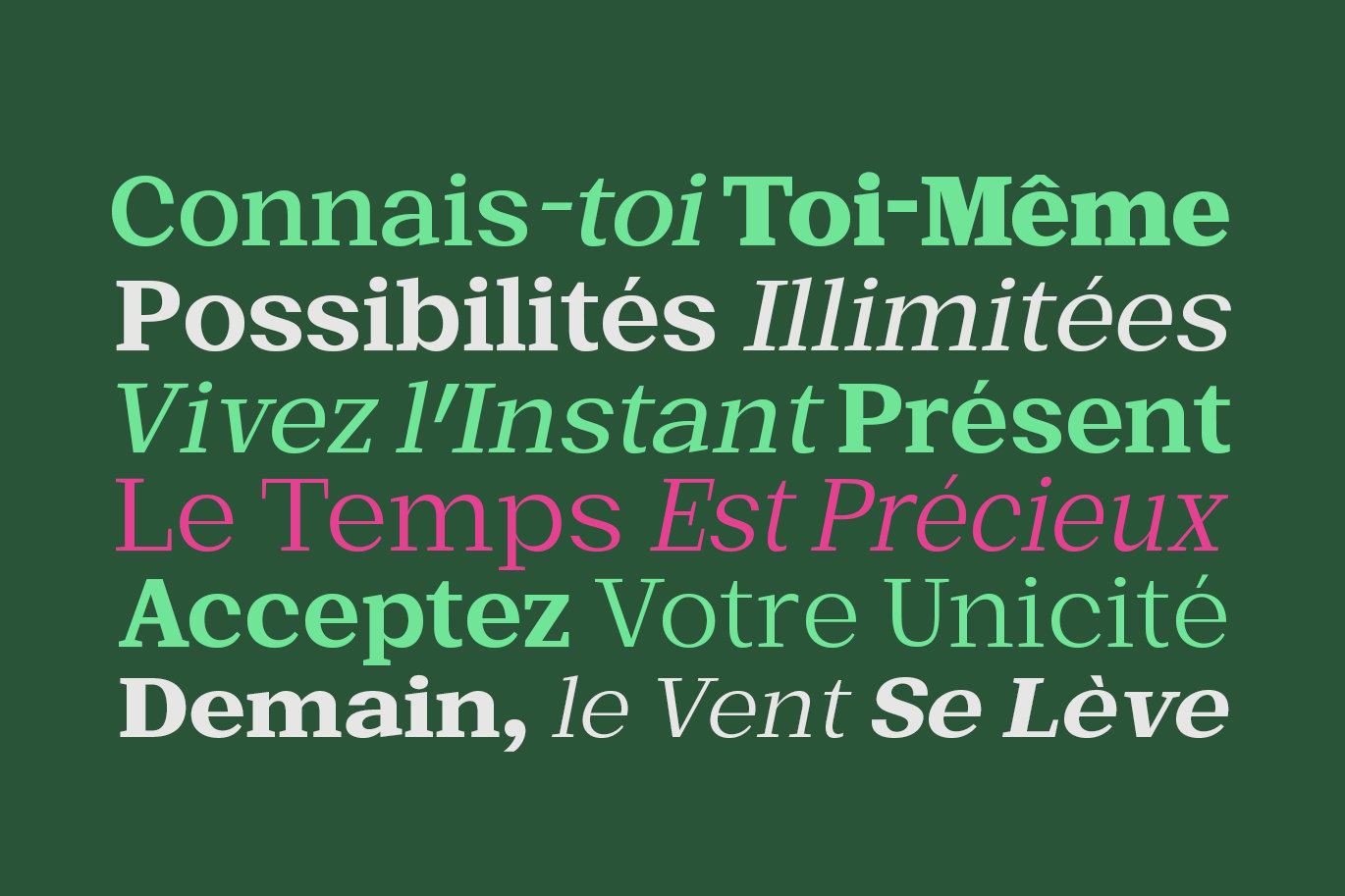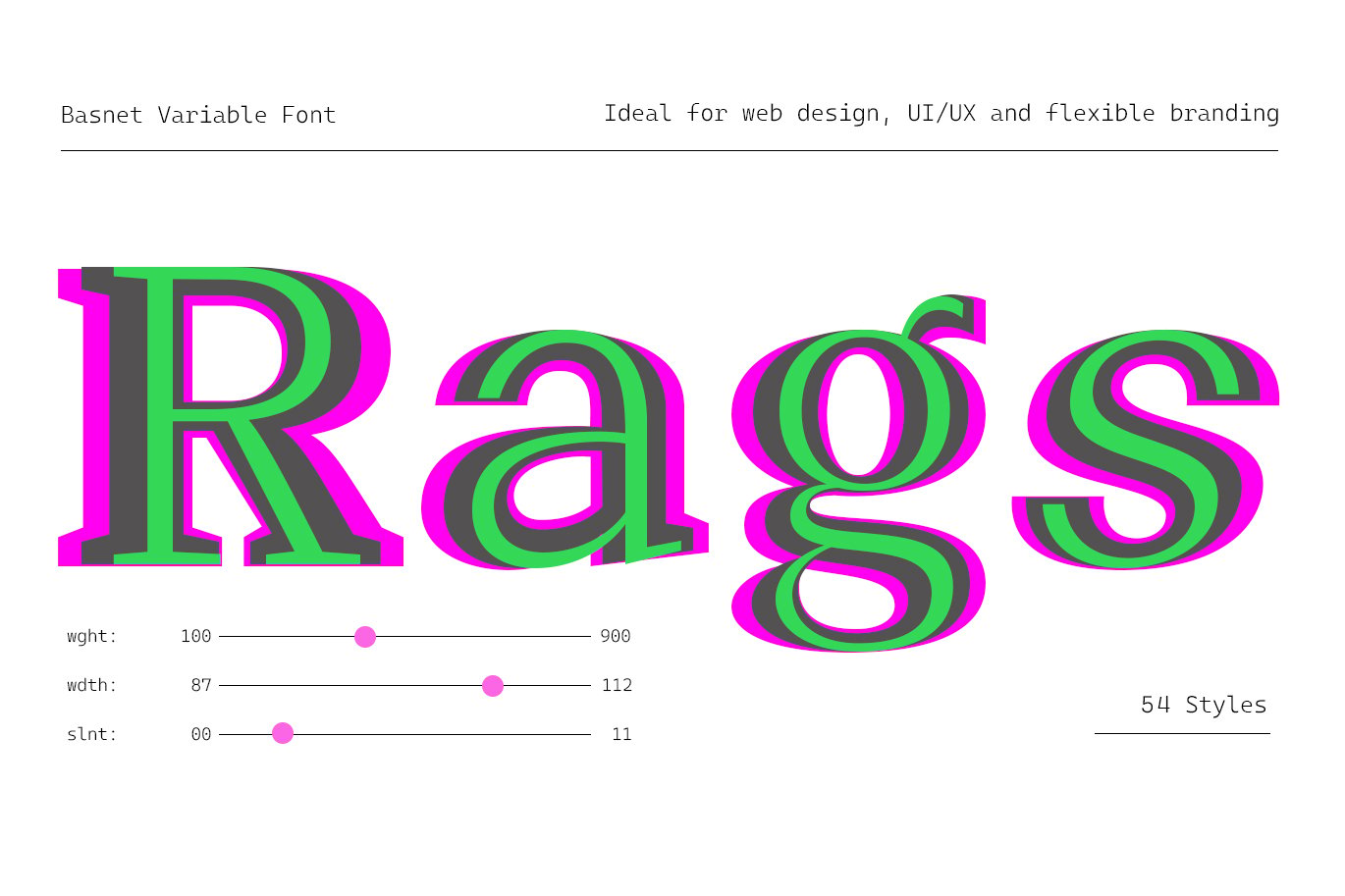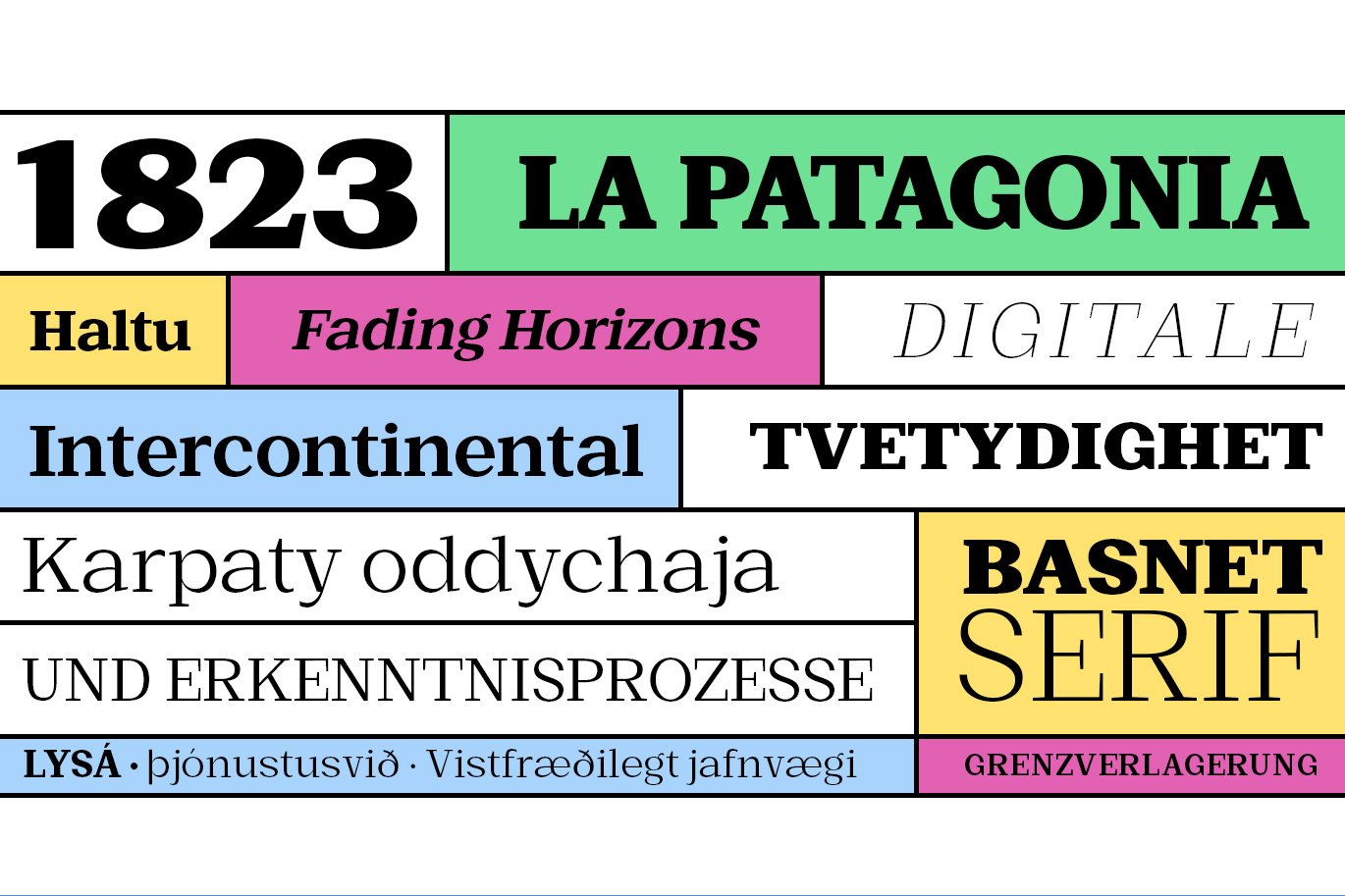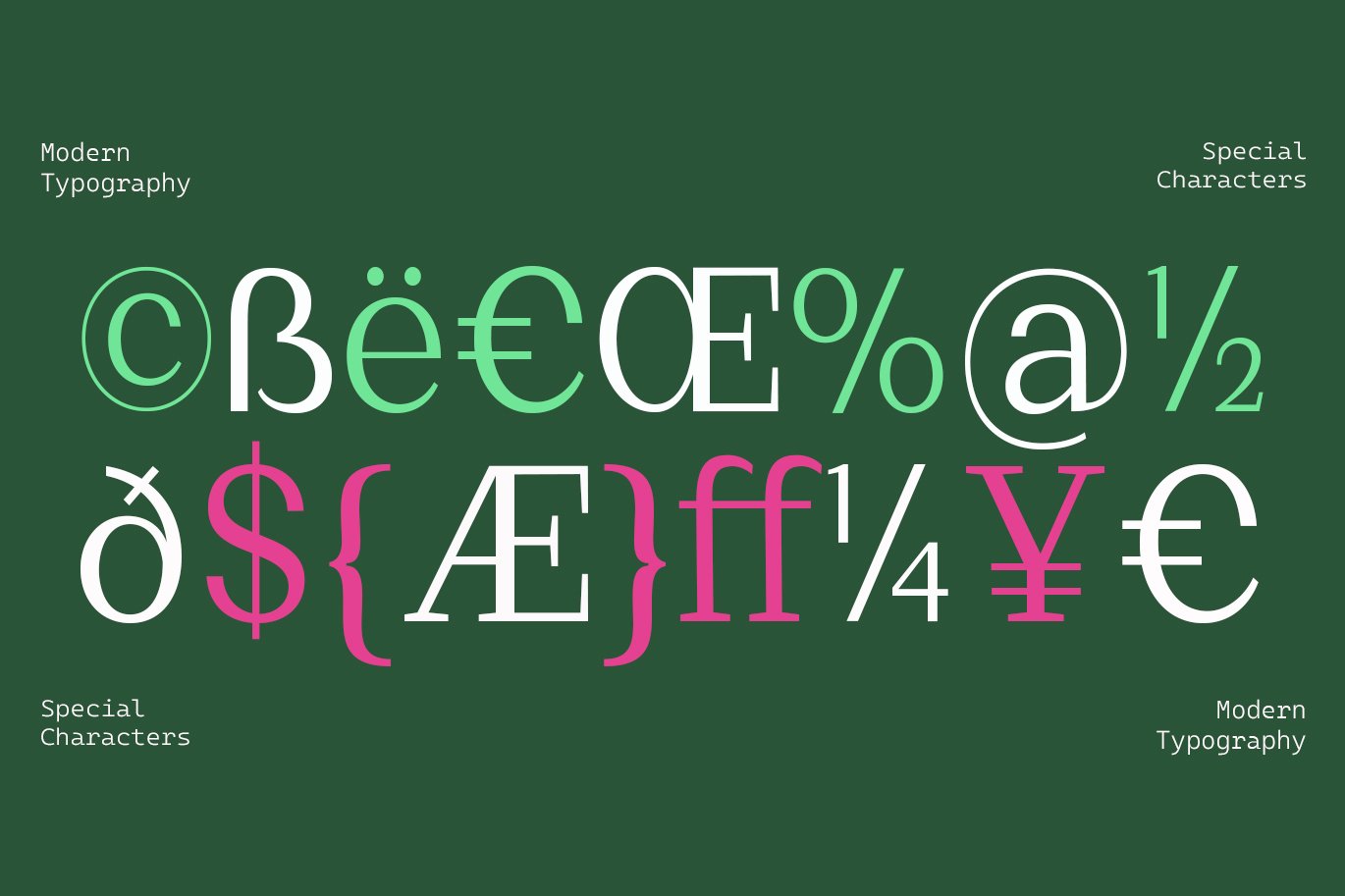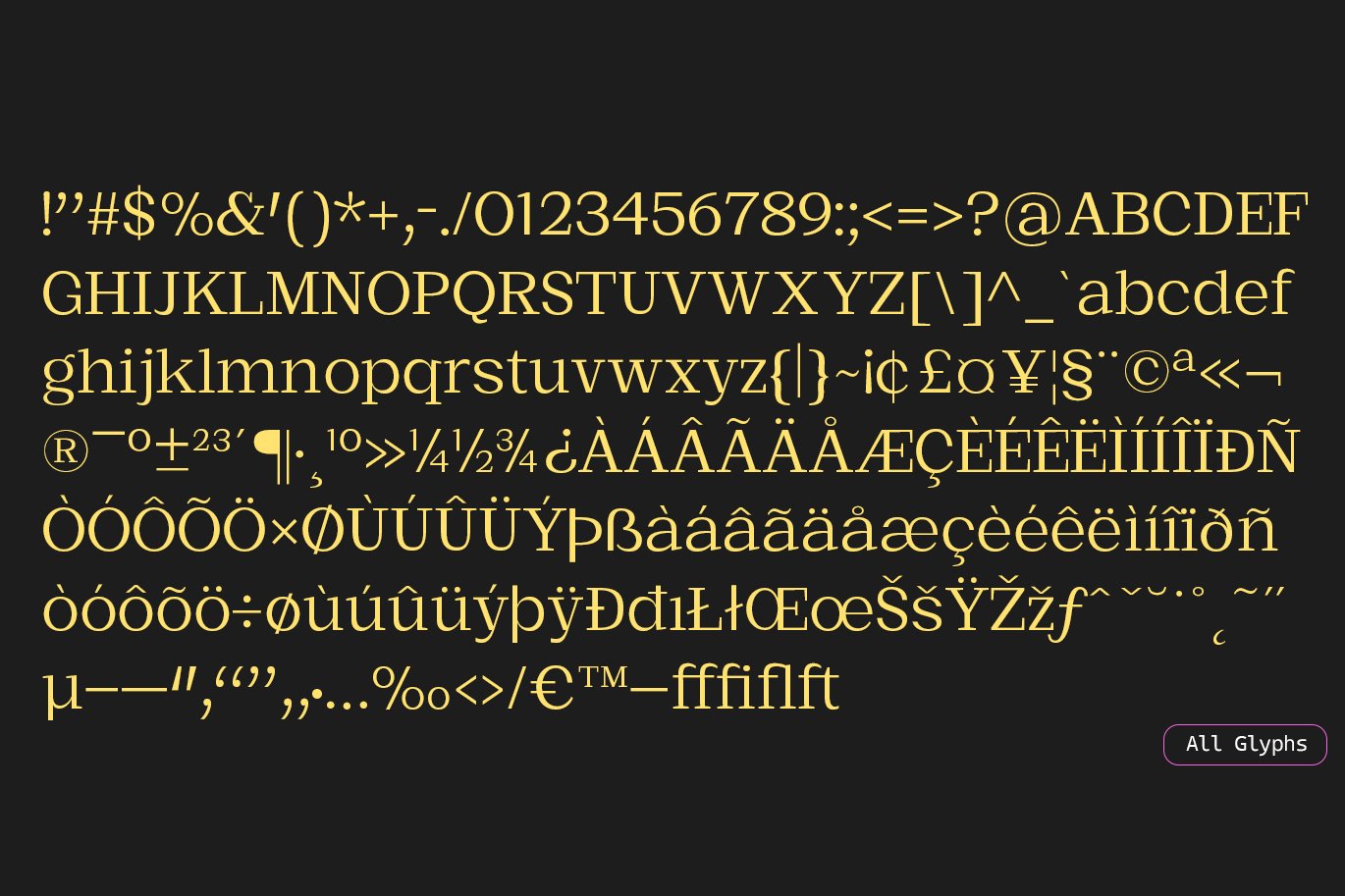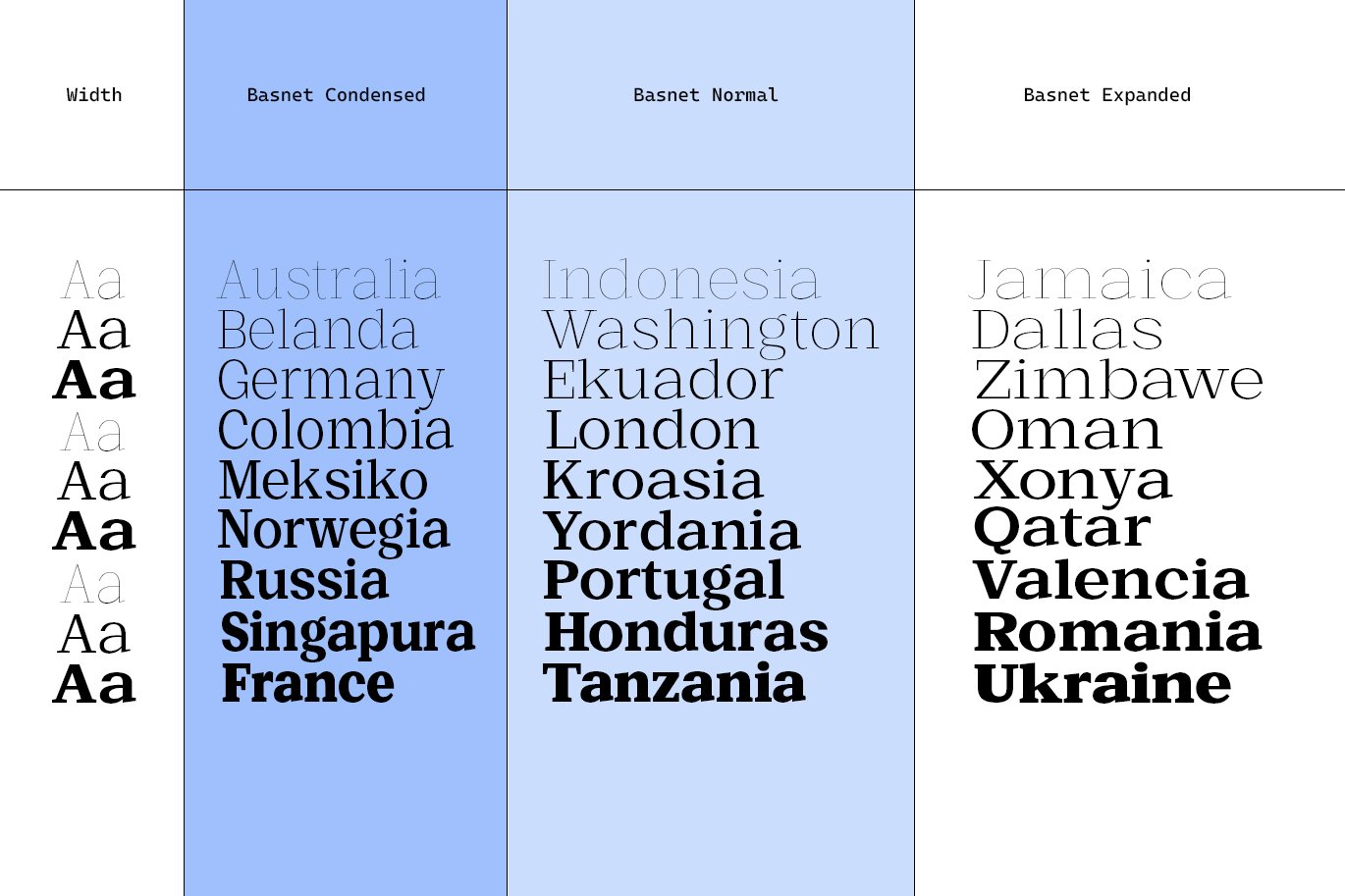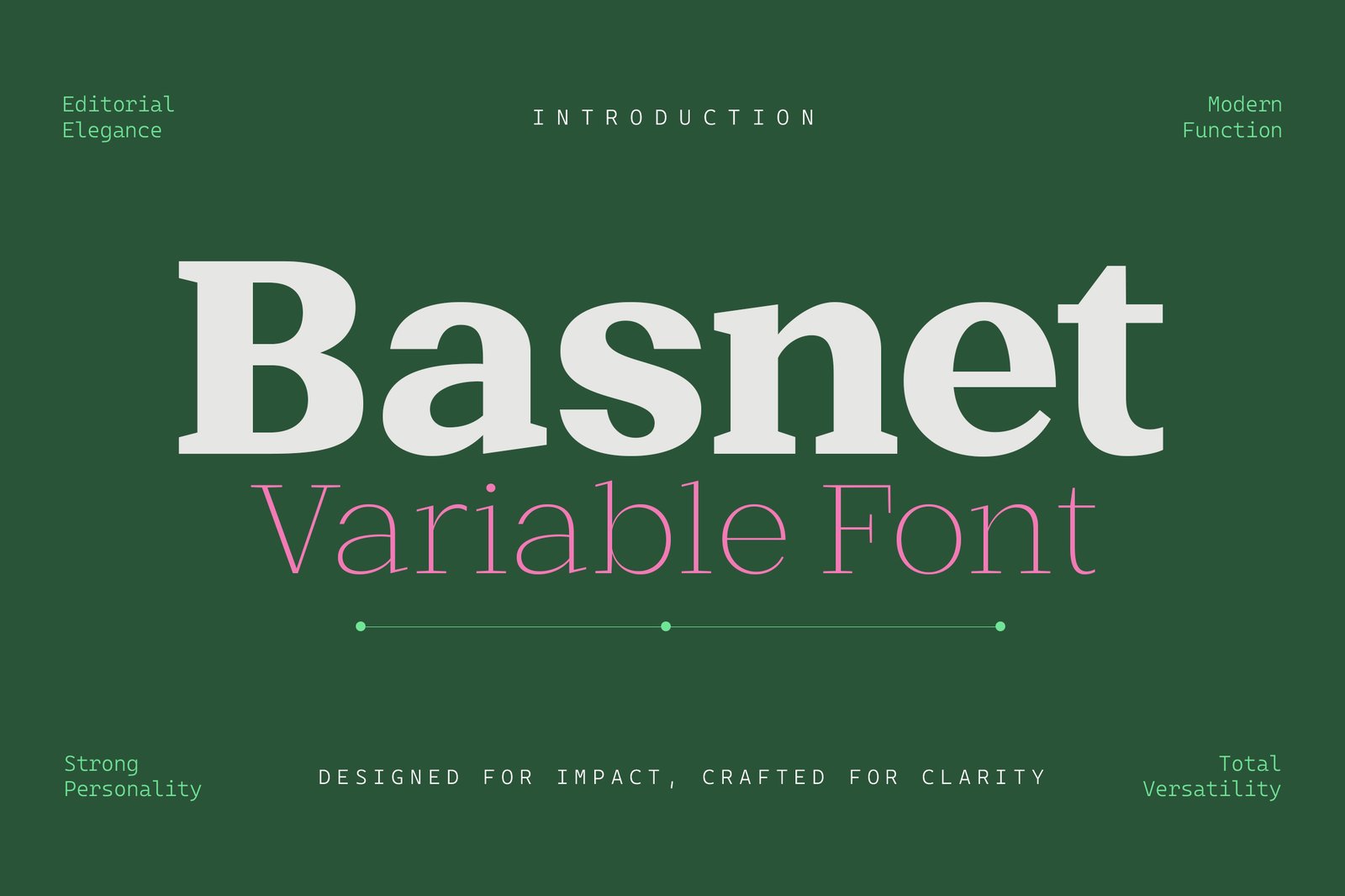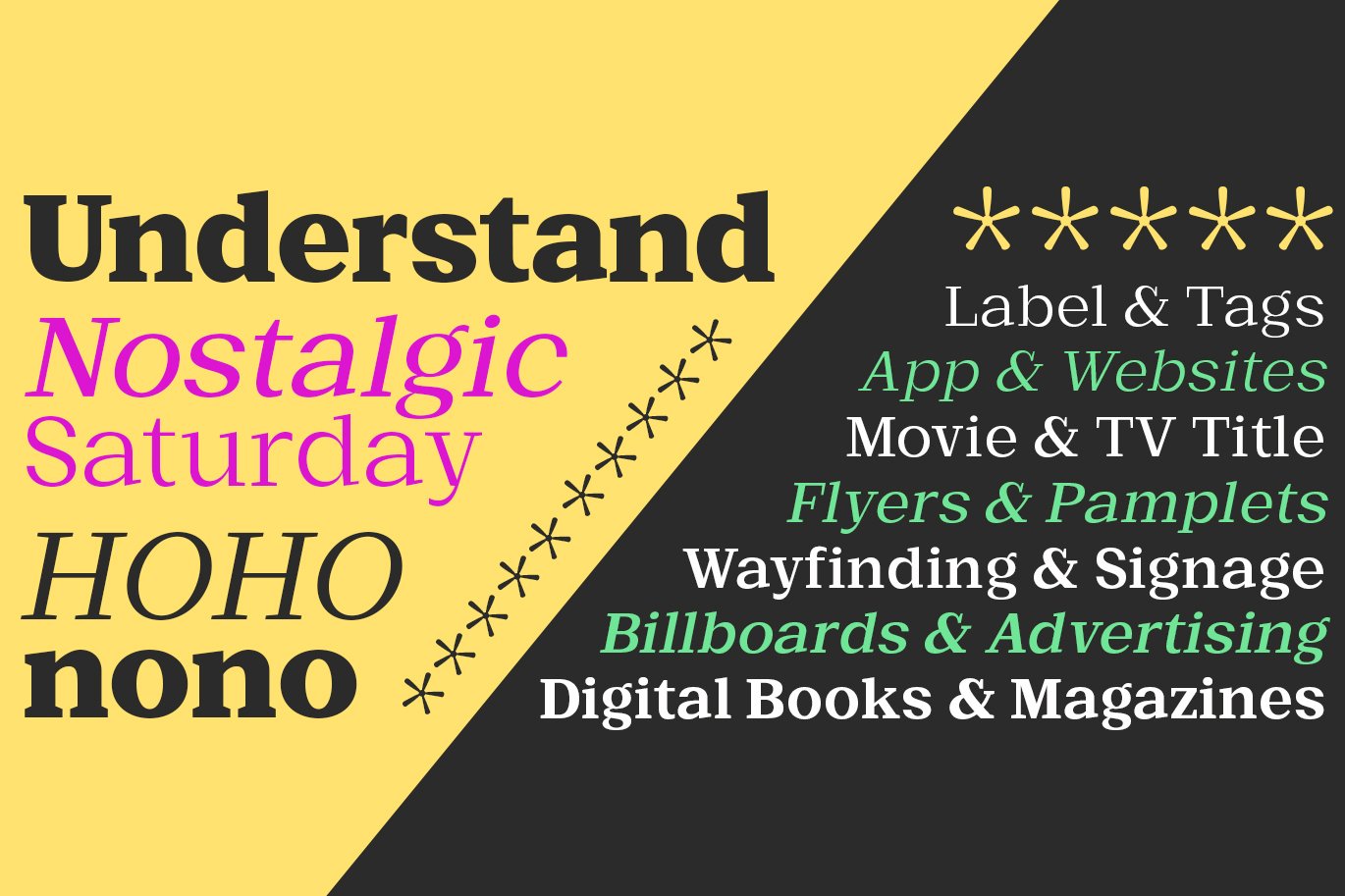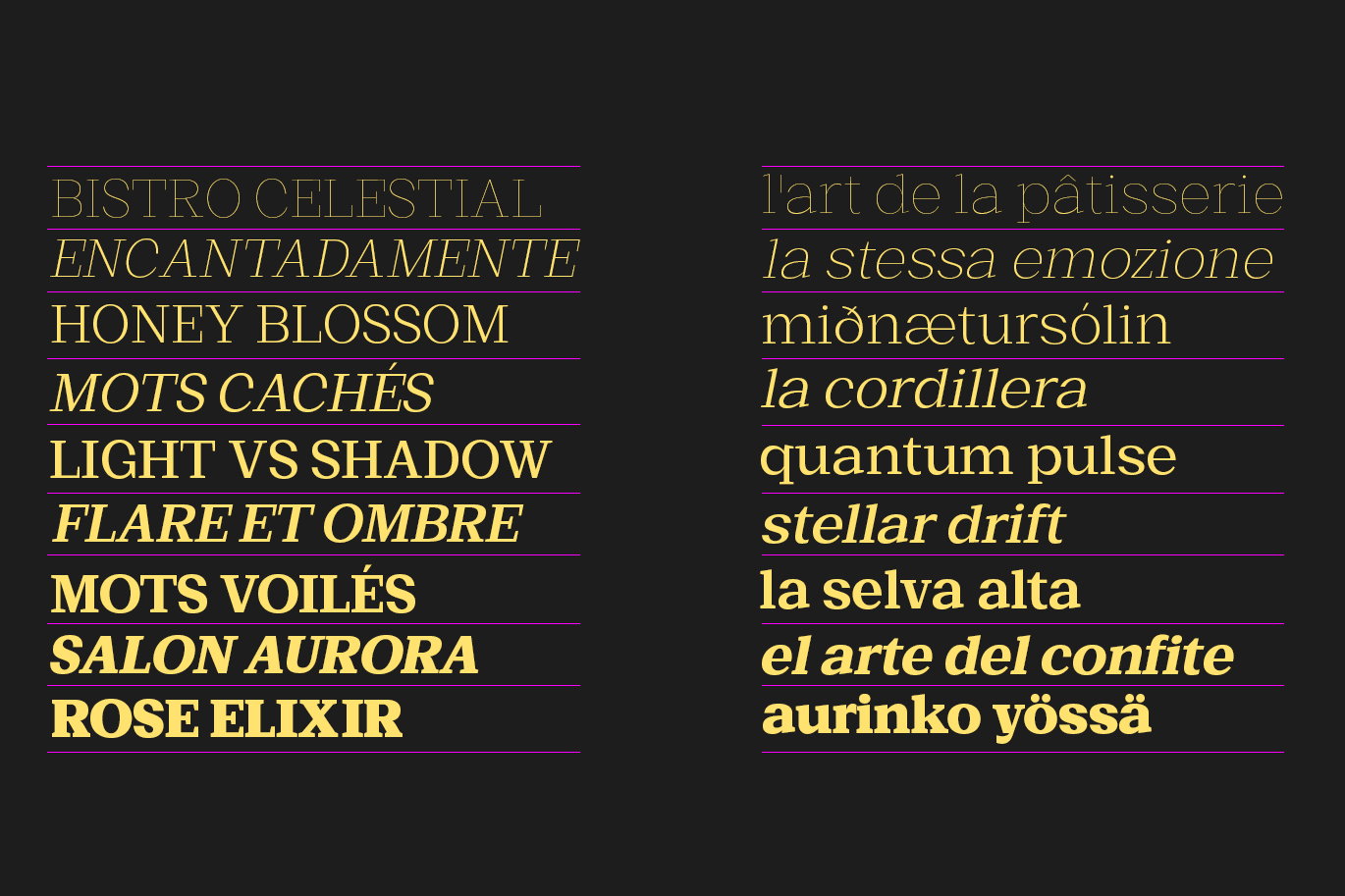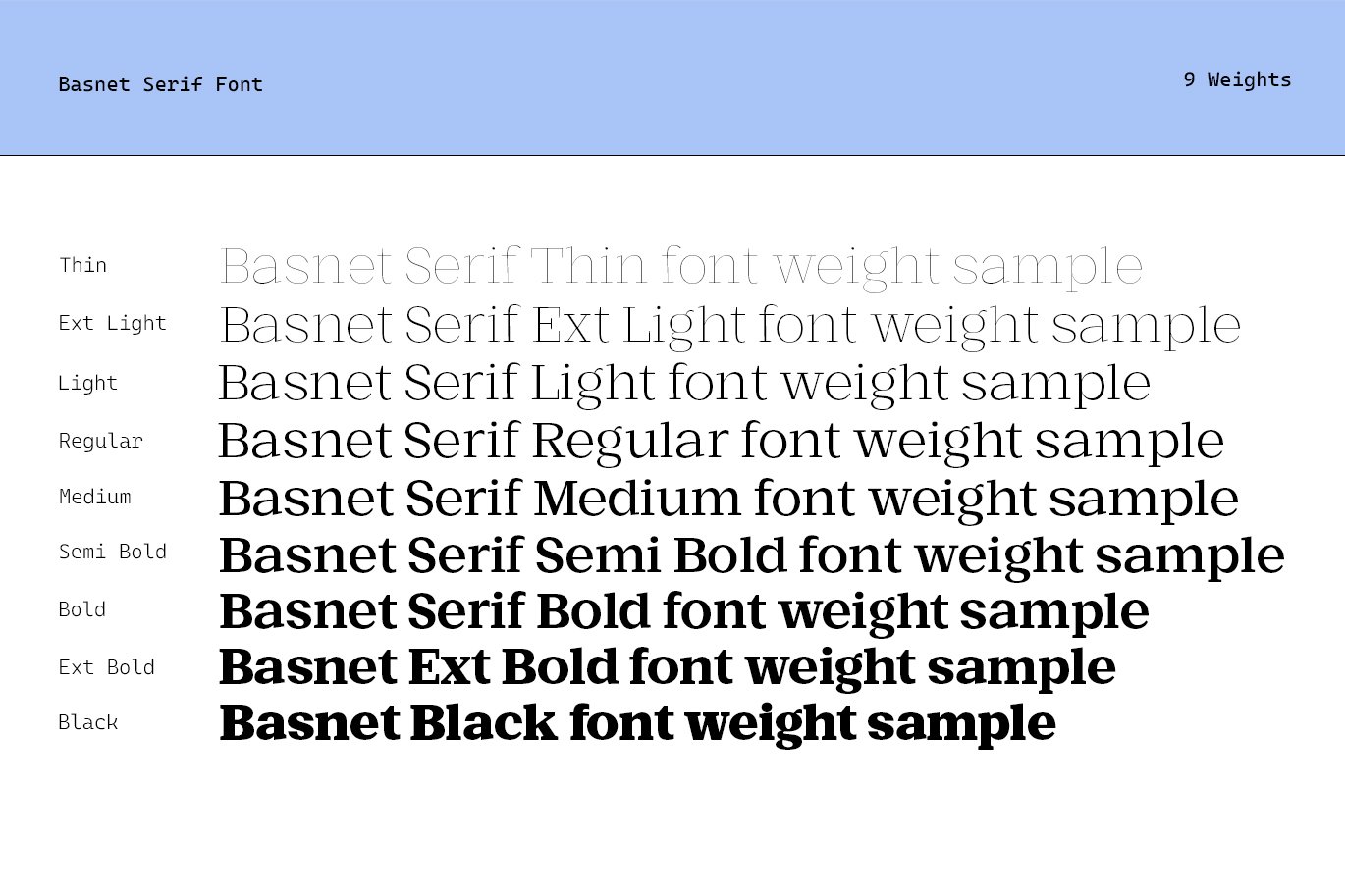
Basnet Font
Basnet, designed by Aqeela Studio, is a transitional serif typeface that blends classical proportions with contemporary precision. Inspired by the timeless elegance of historic letterforms, it has been meticulously crafted to provide both clarity and gravitas in text-heavy and display contexts alike.
The family offers exceptional typographic versatility with 54 individual fonts, spanning 9 weights (from Thin to Black) across 3 widths. To meet the demands of modern design, Basnet includes a fully-featured Variable Font and is specifically optimized for web performance with WOFF and WOFF2 formats, ensuring seamless integration across digital and print platforms.
Designed to embody both authority and readability, Basnet Serif features strong vertical stress, pronounced serifs, and a moderate contrast. While the uppercase characters project solidity and structure, the lowercase set offers a balanced rhythm for extended reading. This sophisticated aesthetic makes it particularly well-suited for editorial work, high-end advertising, corporate identity, and luxury branding.
Technical Summary
Designer: Aqeela Studio
Style: Transitional Serif
Quantity: 54 Styles (9 Weights × 3 Widths)
Variable Font: Included (Control over Weight & Width)
Best For: Editorial, Web Design, Branding, and Luxury Goods.